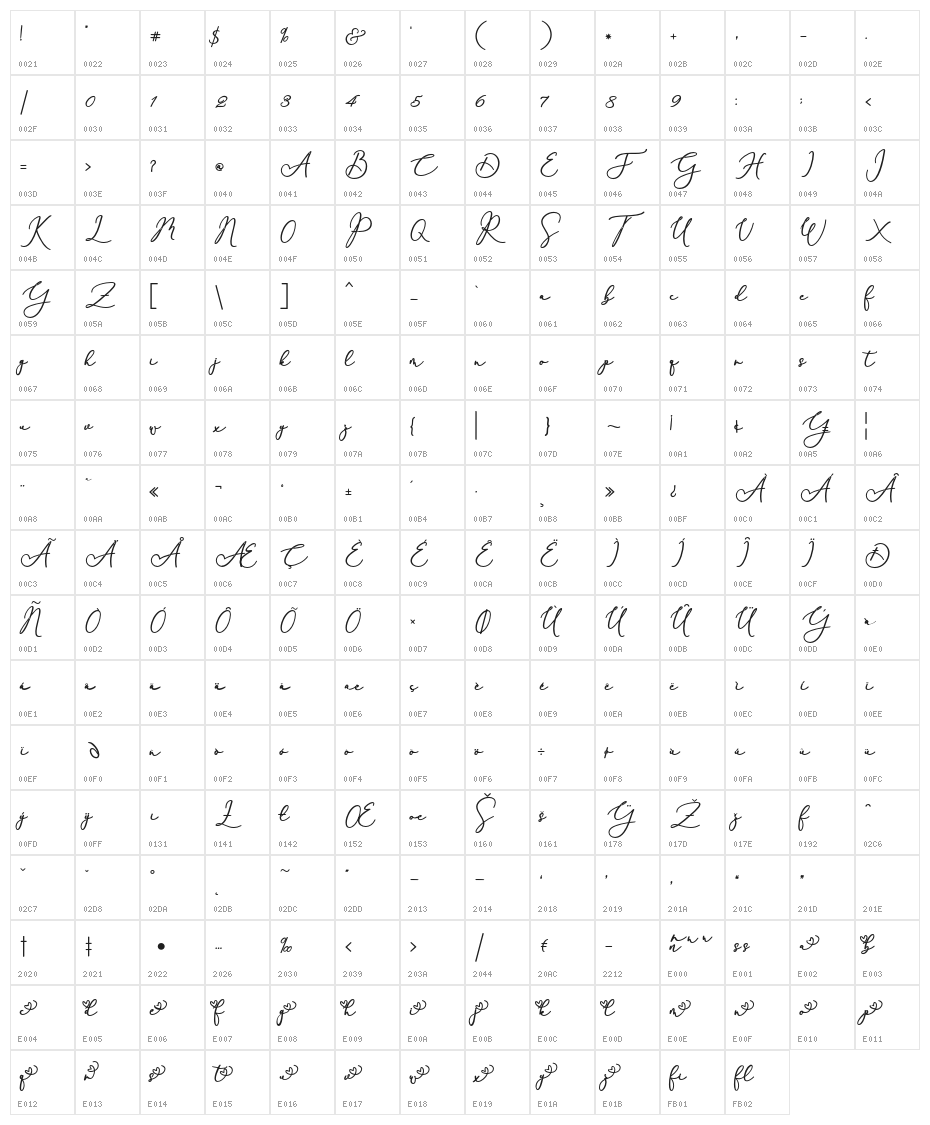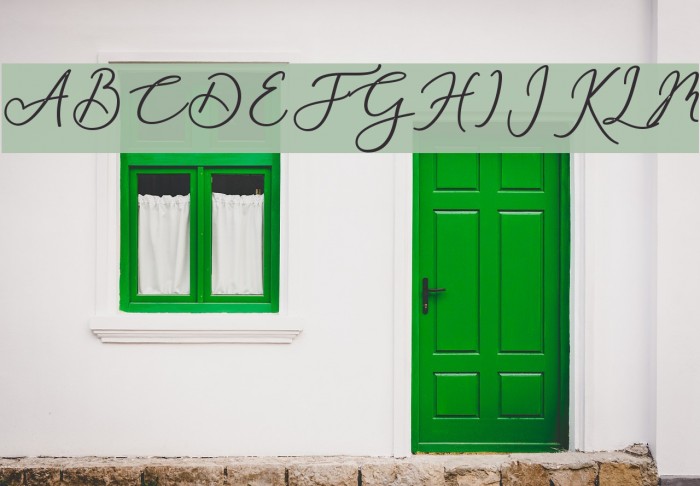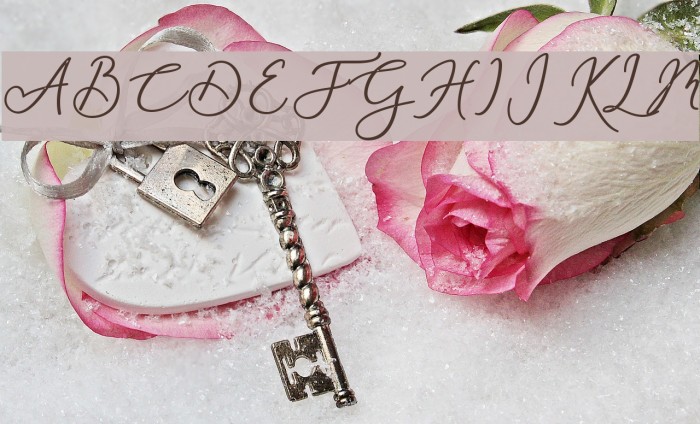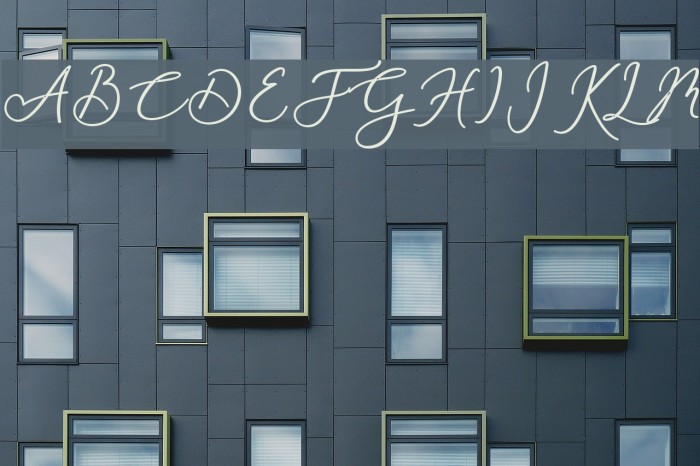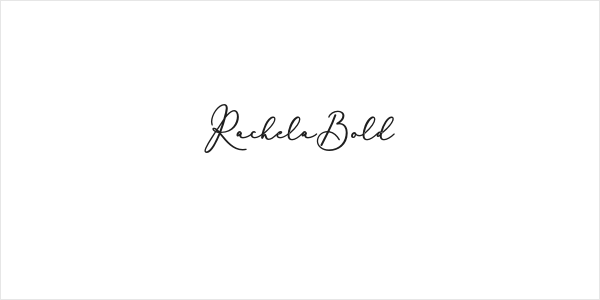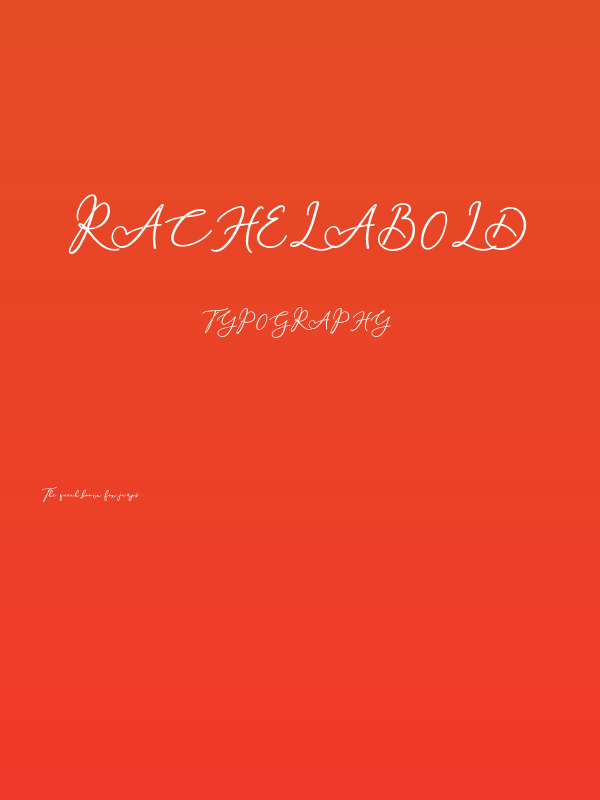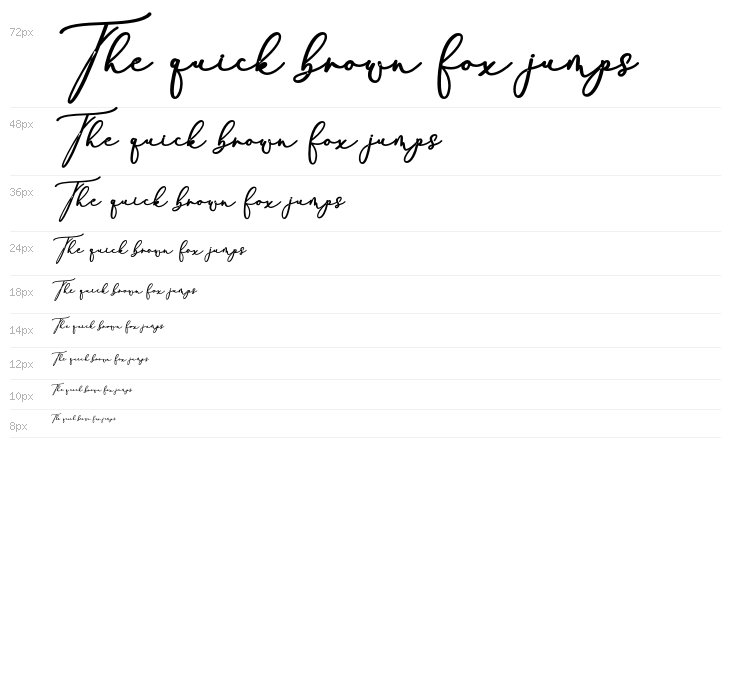
RachelaBold Font
RachelaBold Description
This elegant script font features a flowing, cursive style with smooth, connected strokes that mimic the fluidity of handwriting. The uppercase letters are gracefully elongated, with gentle curves and loops that add a touch of sophistication. The lowercase letters maintain a consistent rhythm, enhancing readability while preserving the font's artistic flair. Numbers and special characters are crafted with the same attention to detail, ensuring a cohesive look across all text elements. This font exudes a sense of elegance and refinement, making it ideal for projects that require a personal, handwritten touch.
| Proposed Projects | Ideal for wedding invitations, greeting cards, personal branding, and elegant packaging designs. |